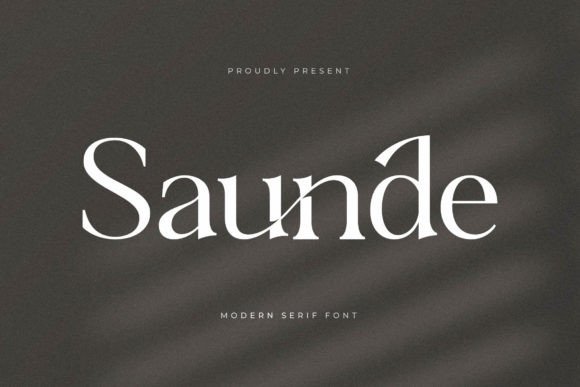
Welcome to the world of Saunde Font, a type family of exquisite beauty and distinction. This modern serif font, crafted with precision by Storytype Studio, unveils a realm of typographic possibilities, inviting you to elevate your creative visions to new heights.
As you embark on your typographic journey with Saunde Font, you will discover a world of elegance and luxury. Its refined strokes and intricate details dance across the page, captivating your audience with their grace and charm. Whether you seek to create an unforgettable logo, a book title that exudes sophistication, or a fashion brand that radiates opulence, Saunde Font stands as your steadfast companion, guiding you towards typographic excellence.
Unleash the power of Saunde Font in your magazine layouts, where its elegant curves and sharp serifs bring your words to life. Let your fashion designs shimmer with an aura of sophistication, as Saunde Font adorns your garments with its timeless beauty. Craft lettering that captivates and quotes that linger in the memory, for Saunde Font transforms ordinary words into extraordinary expressions of art.
Beyond its visual allure, Saunde Font is a font of versatility, adapting seamlessly to a multitude of design endeavors. Its PUA encoding opens up a treasure trove of glyphs and swashes, granting you the freedom to explore endless creative possibilities. With Saunde Font as your trusted ally, your typographic dreams become a reality.
So, dear artist, let your imagination soar as you wield the power of Saunde Font. Create logos that command attention, book titles that ignite curiosity, and fashion designs that leave an indelible mark. Embrace the boundless potential of this modern marvel and watch your creative endeavors flourish.